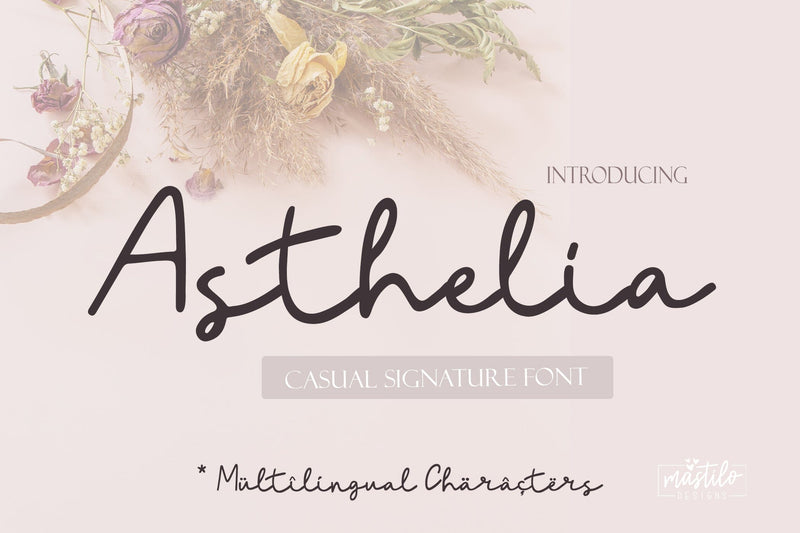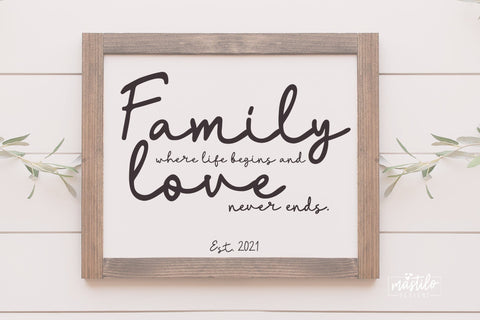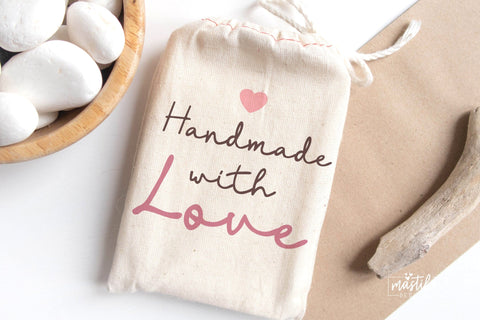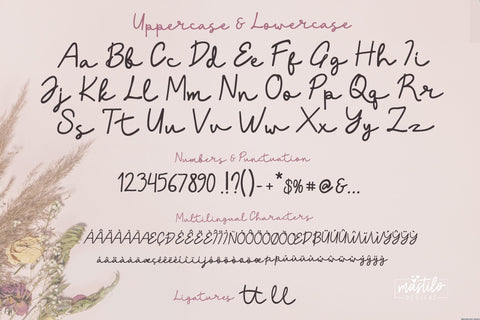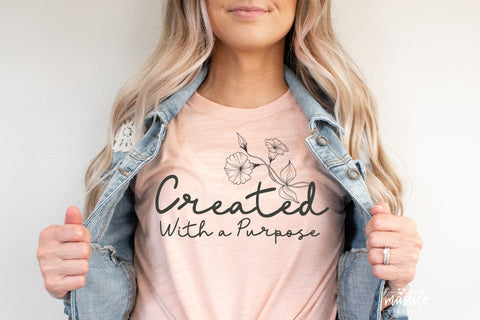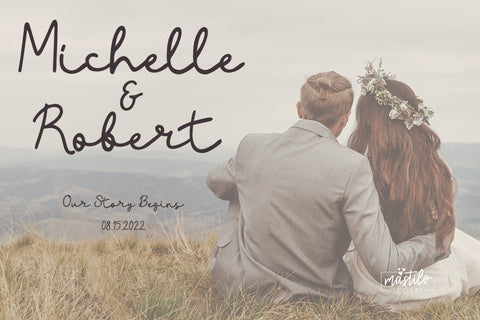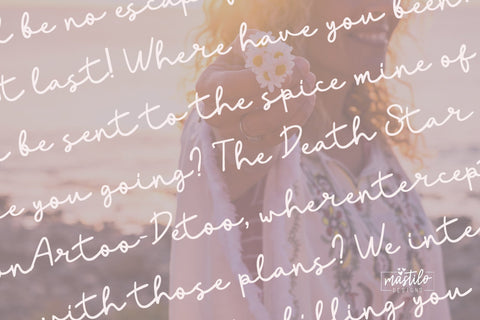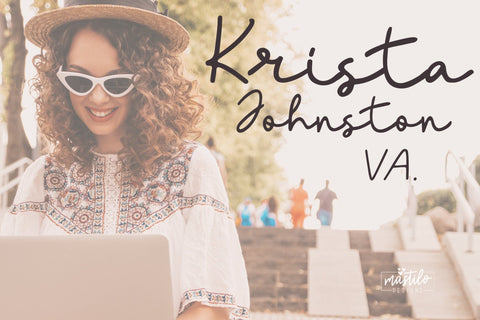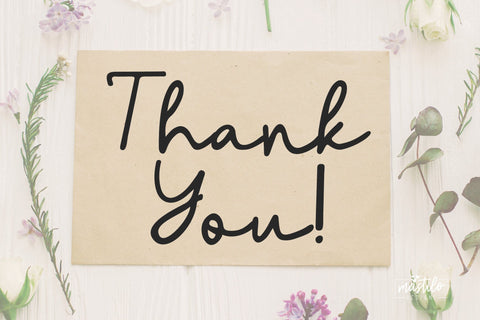
Handwritten Casual Signature Script - Asthelia | Romantic Font
Introducing Asthelia, a handwritten casual signature script font with a boho romantic touch perfect to use for all your projects.
With a multilingual support this font makes a great addition to your font book.
Use it to design logos + branding, apparel, stickers, phone cases, home decor, social media templates and instagram quotes, cricut and silhouette projects, procreate and so much more.
Asthelia Signature Script font includes:
~ full upper + lowercase characters
~ numbers + punctuation
~ Western European Language Support
~ few ligatures to enhance the handwritten look